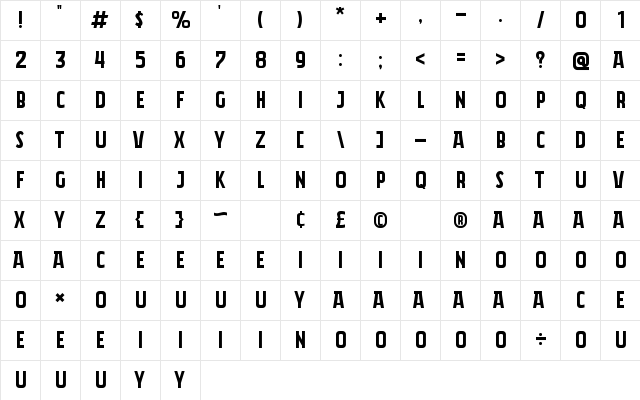
Akira Jimbo Regular Font Preview
Akira Jimbo Regular
Akira Jimbo Regular Font Details
Design Context for Akira Jimbo Typeface
Akira Jimbo offers clean, dependable letterforms without strong stylistic allegiance, making it a practical choice for designers who need flexibility.